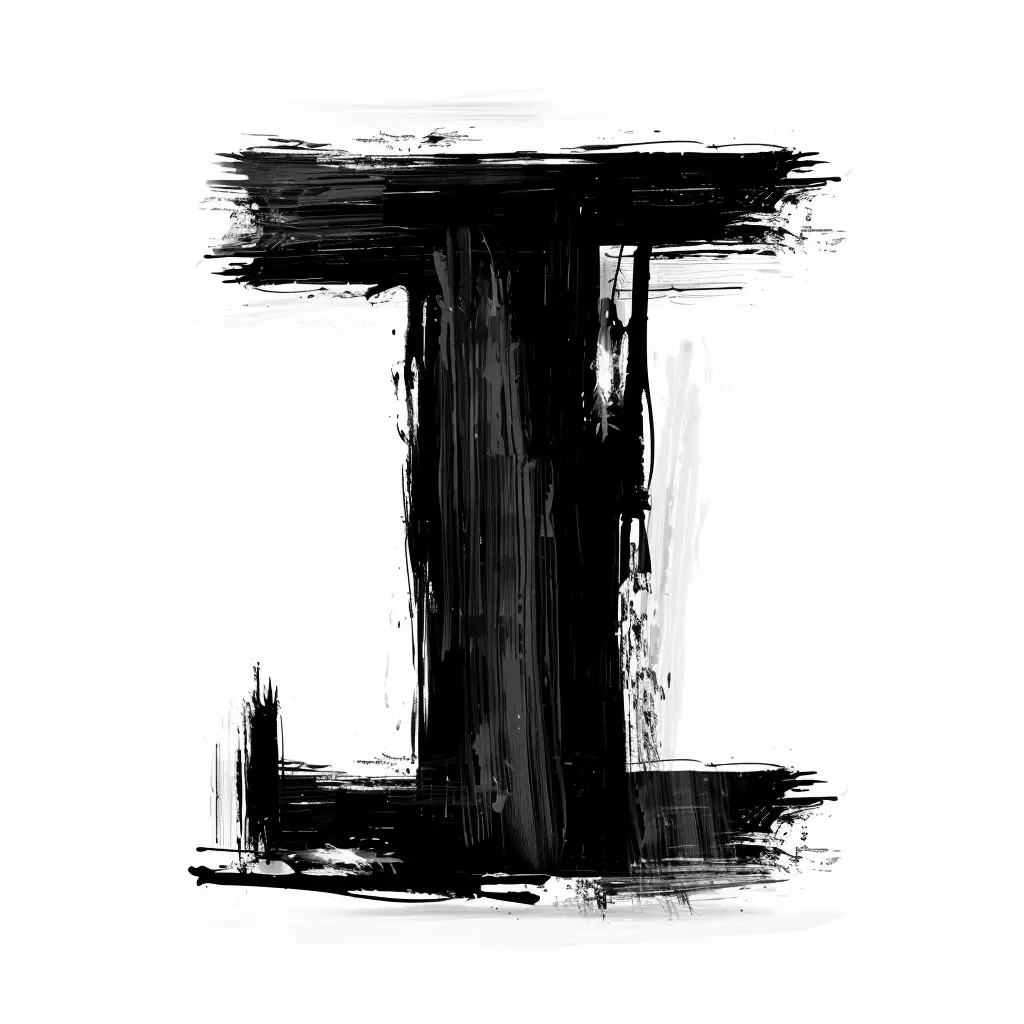
This image features a stylized, abstract representation of the letter "I," rendered in a rough, brushstroke-like style. The subject is composed of bold, black ink strokes with textured edges and varying thickness, set against a plain white background. The visual elements emphasize a raw, artistic aesthetic through uneven lines and splattered details, creating a dynamic, hand-painted effect.